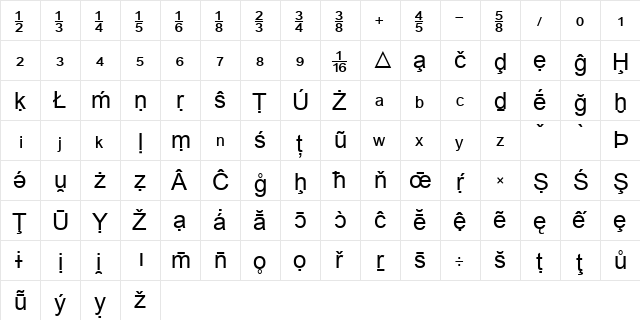
Bookshelf Symbol 2 Regular
Design Context for Bookshelf Symbol 2 Typeface
Bookshelf Symbol 2 takes a measured approach to typography — its balanced proportions and neutral character make it a reliable workhorse for both digital and print work.